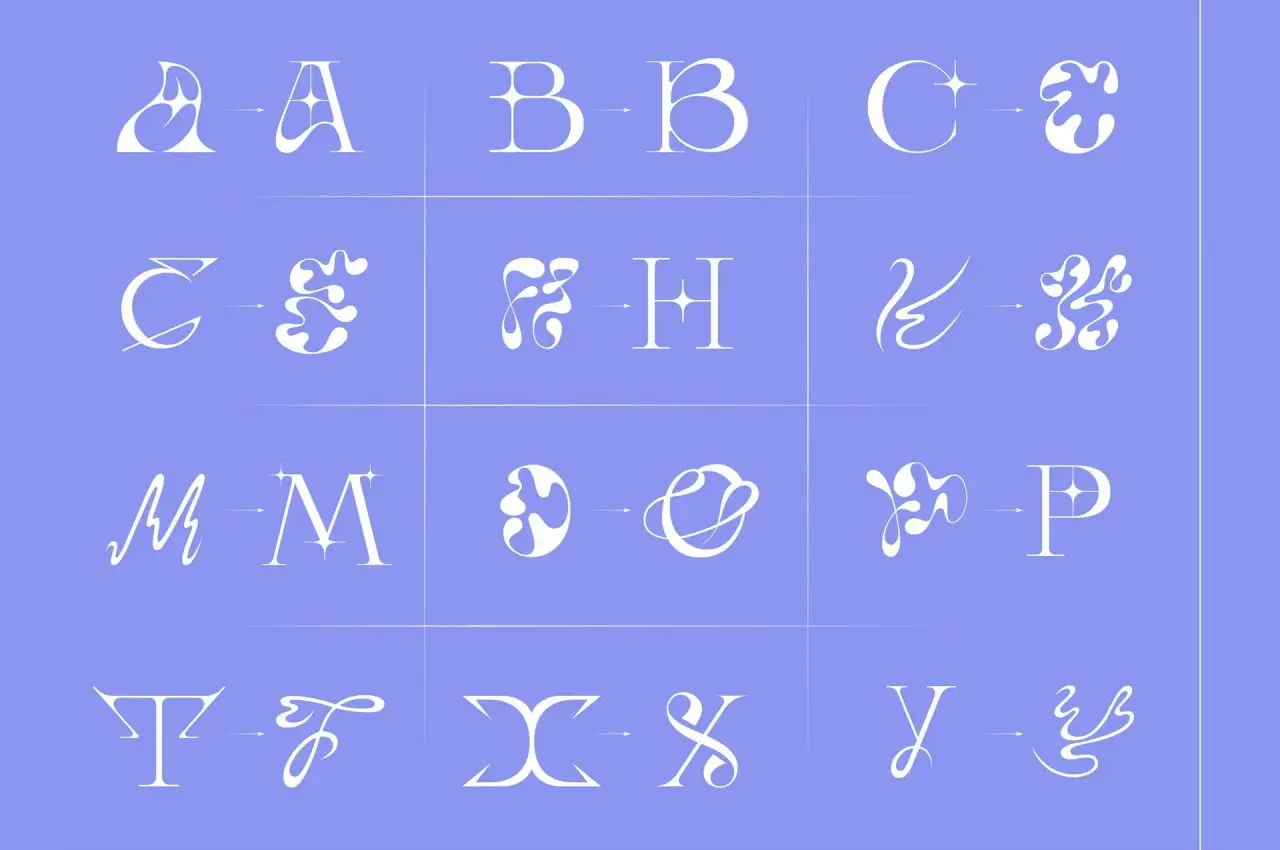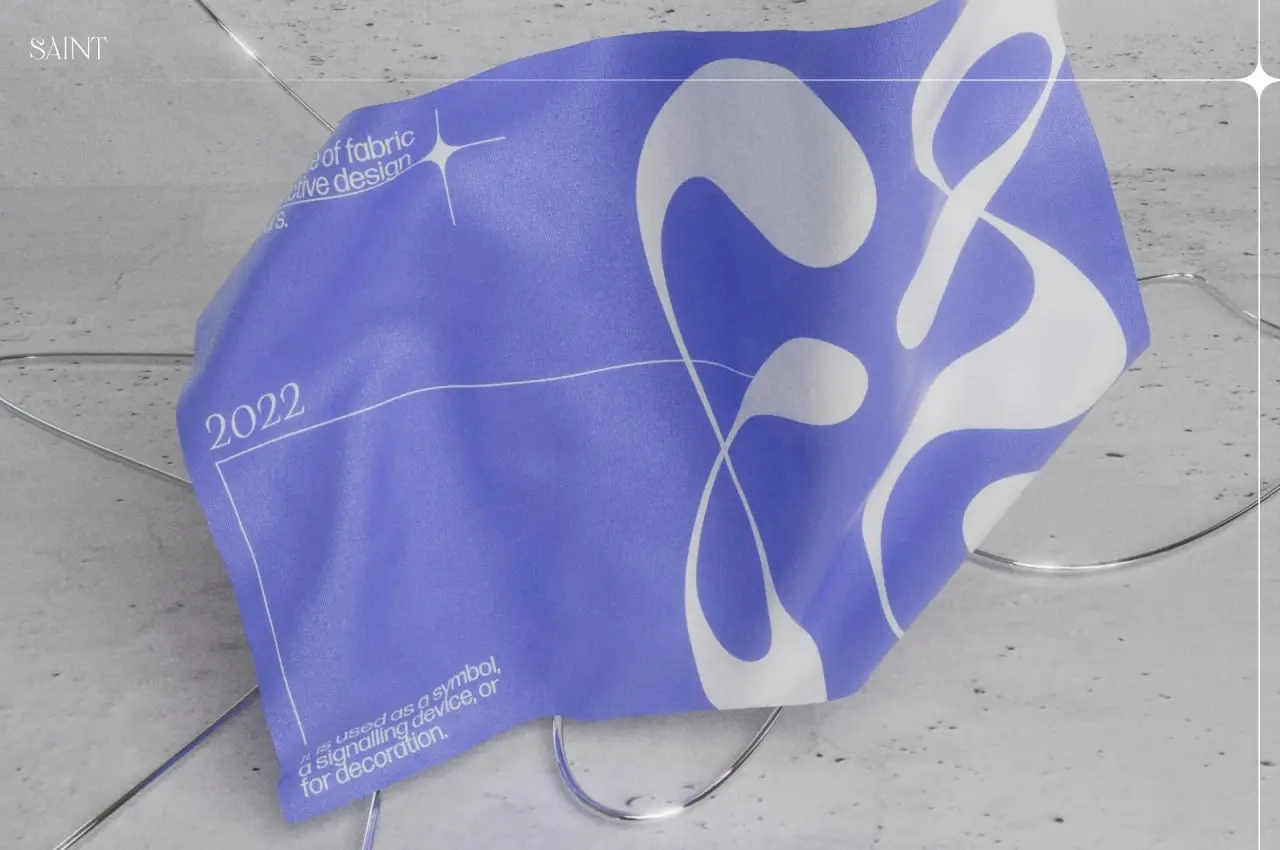
Saint Font By Liza Dushnota
The Saint Font by Liza Dushnota is a beautifully crafted typeface that combines elegance with versatility. This font is perfect for a variety of design projects, including branding, logos, web design, and print materials.
• Stylish and modern design
• Multiple weights for diverse applications
• Ideal for creating eye-catching logos and branding materials.
• Great for web typography to enhance readability and aesthetics.
• Use in print designs for invitations, flyers, and business cards.